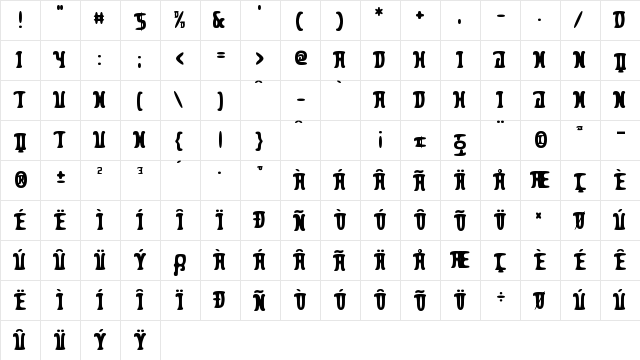
Pleasant Despair Regular
Design Context for Pleasant Despair Typeface
Pleasant Despair is a composed and adaptable typeface that performs quietly and consistently across a wide range of design contexts.